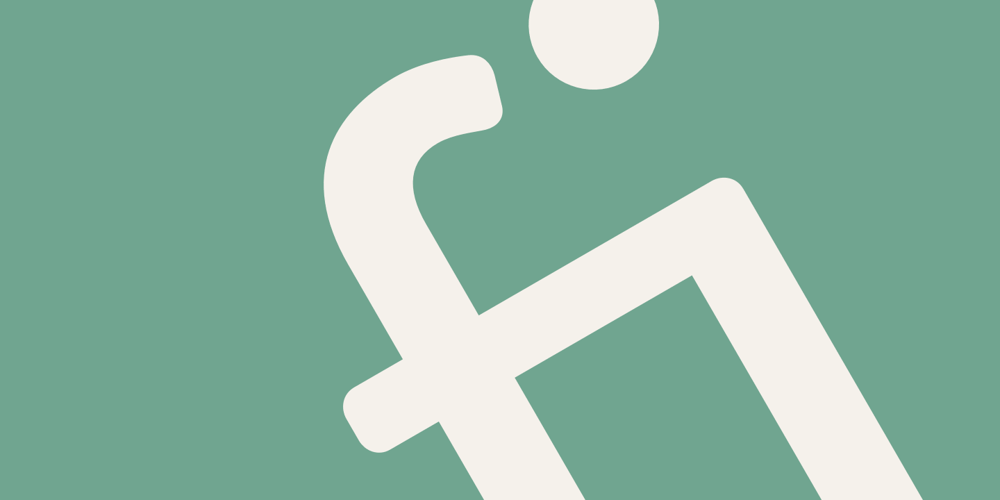
FF Info Text
FF Info Text Font Family was designed by Ole Schäfer, Erik Spiekermann and published by FontFont. FF Info Text contains 10 styles and family package options. German type designers Erik Spiekermann and Ole Schäfer created this sans FontFont between 1996 and 2000. The family has 10 weights, ranging from Regular to Bold (including italics) and is ideally suited for book text, editorial and publishing, small text as well as web and screen design. FF Info Text provides advanced typographical support with features such as ligatures, small capitals, alternate characters, case-sensitive forms, fractions, and super- and subscript characters. It comes with a complete range of figure set options – oldstyle and lining figures, each in tabular and proportional widths. In 1998, FF Info Text received the The Big Crit award. This FontFont is a member of the FF Info super family, which also includes FF Info Correspondence and FF Info Display.